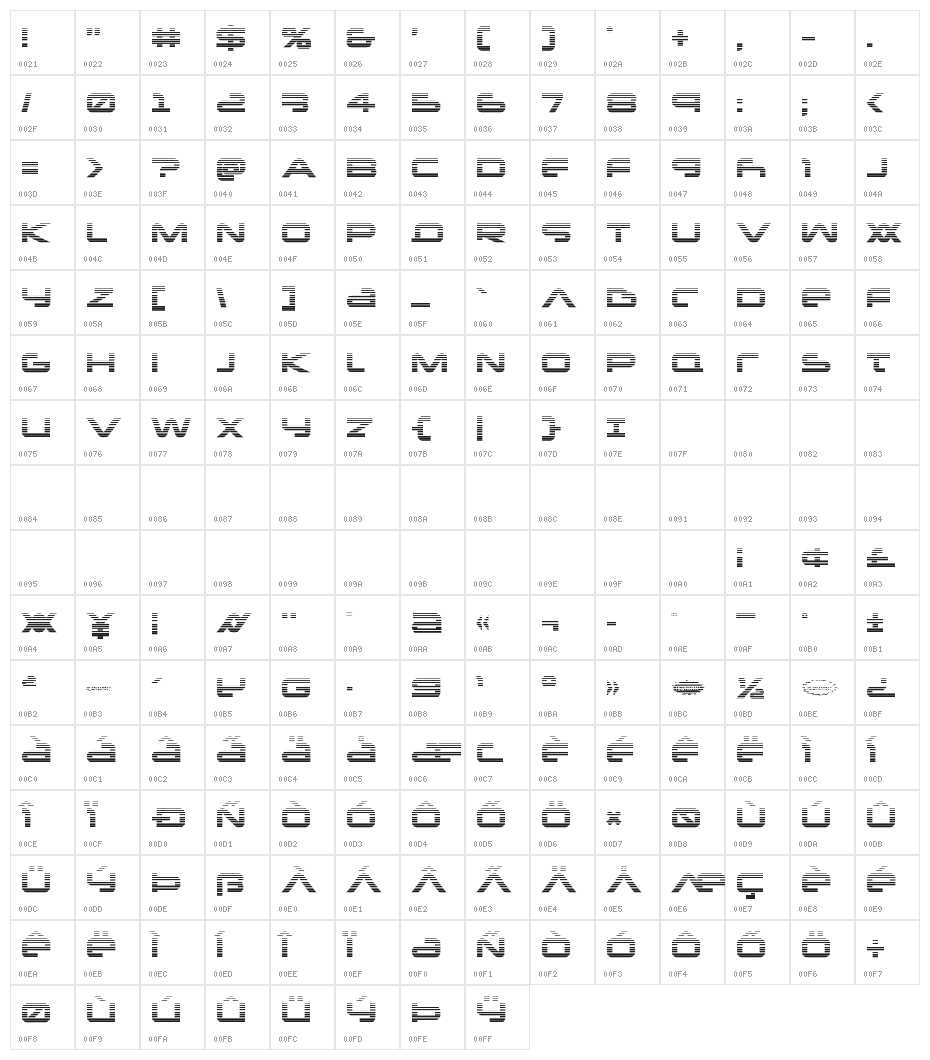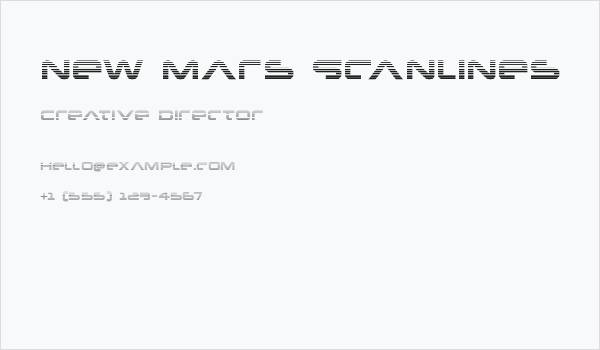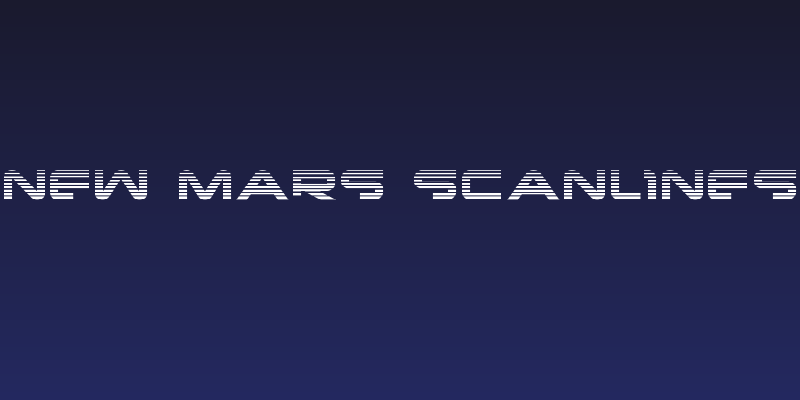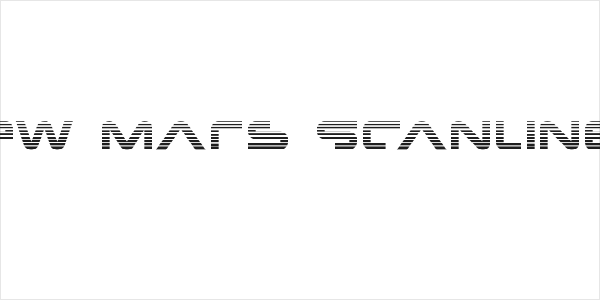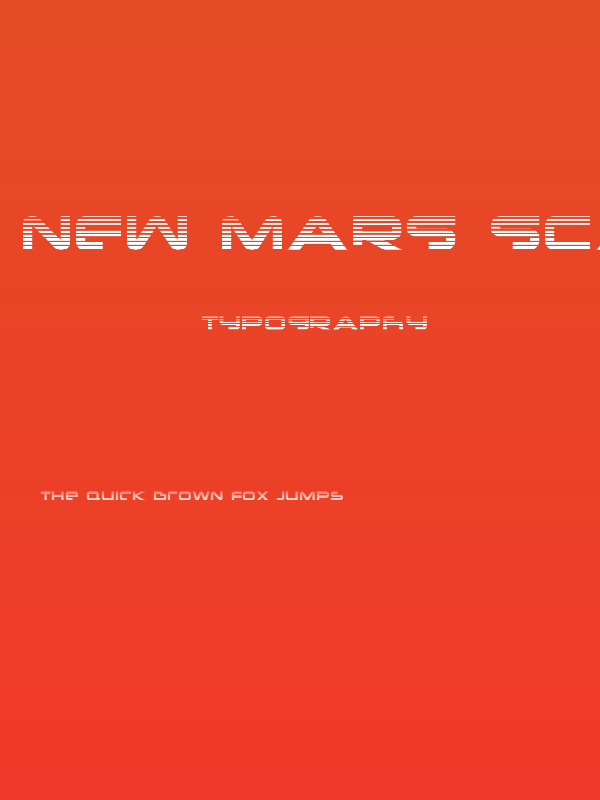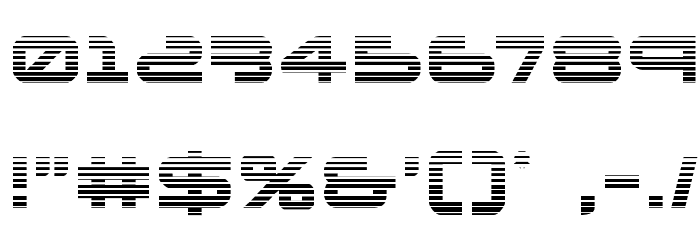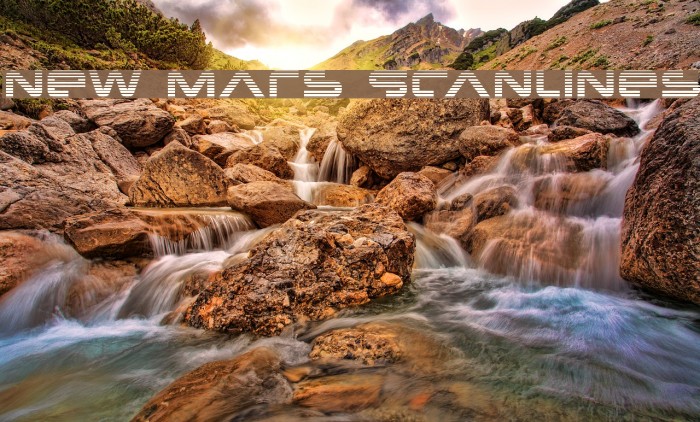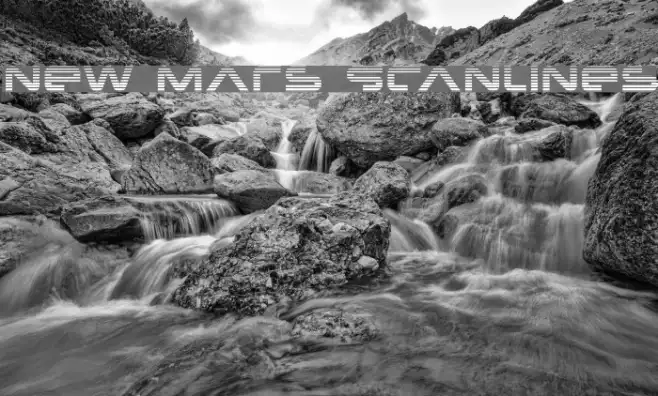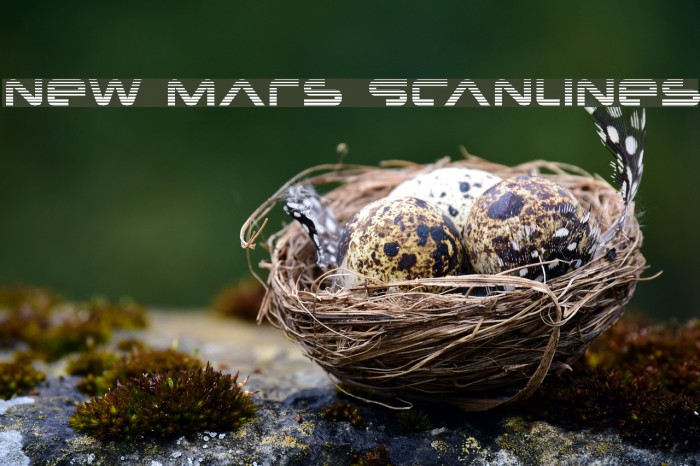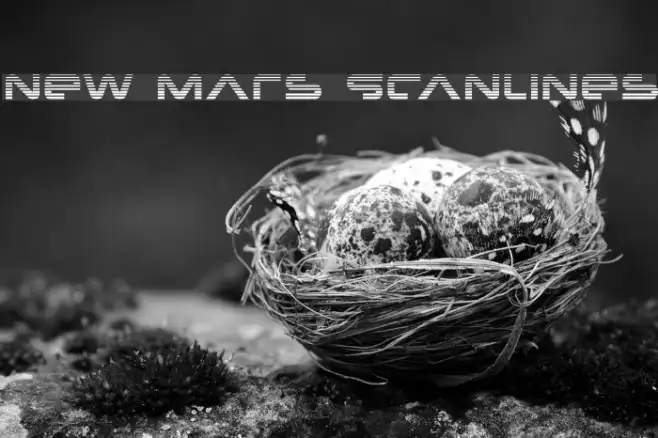
New Mars Scanlines Font
New Mars Scanlines Description
This font features a futuristic and digital aesthetic, characterized by its unique scanline effect that runs horizontally across each character. The design incorporates a modern, tech-inspired look with a geometric structure, making it stand out with its bold and innovative style. The uppercase and lowercase letters maintain a consistent pattern, enhancing the overall uniformity and coherence of the typeface. Numbers and special characters are designed with the same attention to detail, ensuring versatility across various applications. The font's distinct appearance is ideal for projects that aim to convey a sense of modernity and technological advancement.